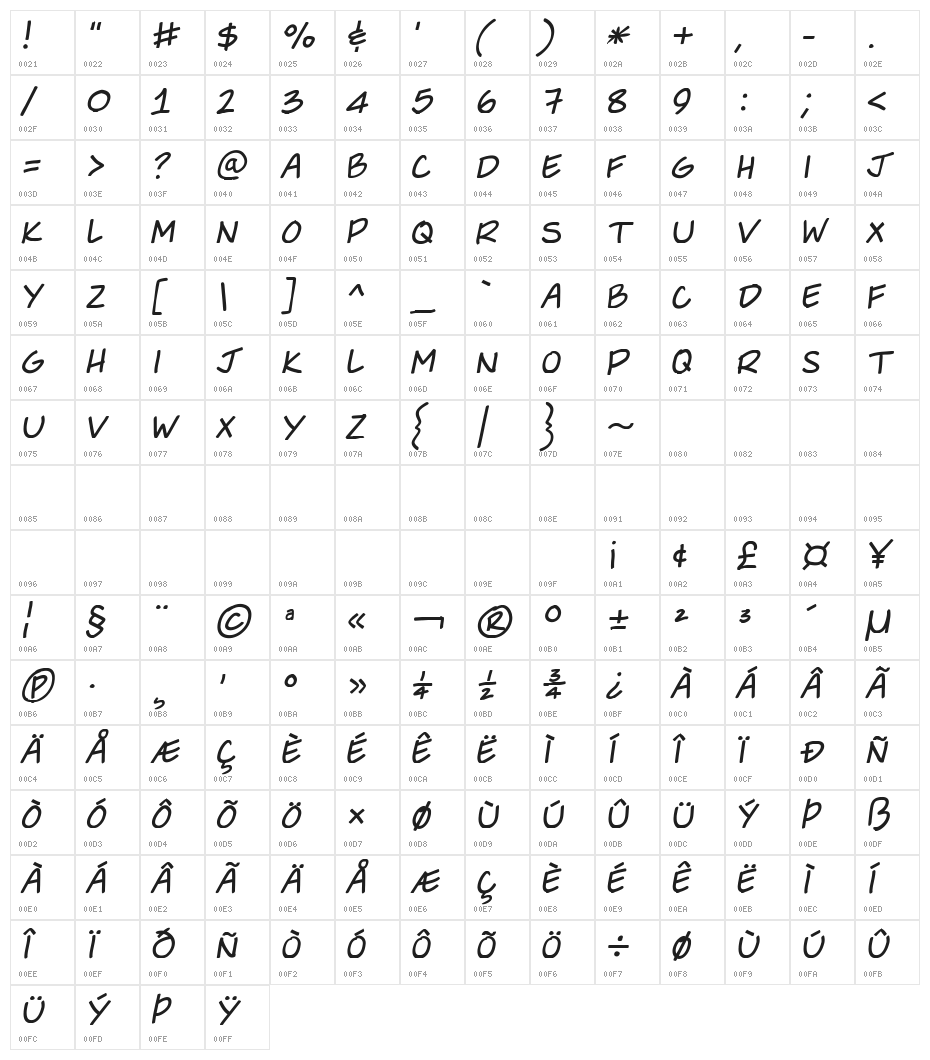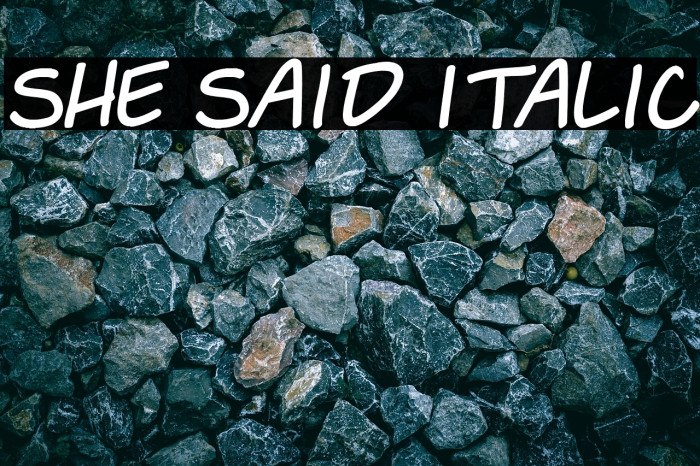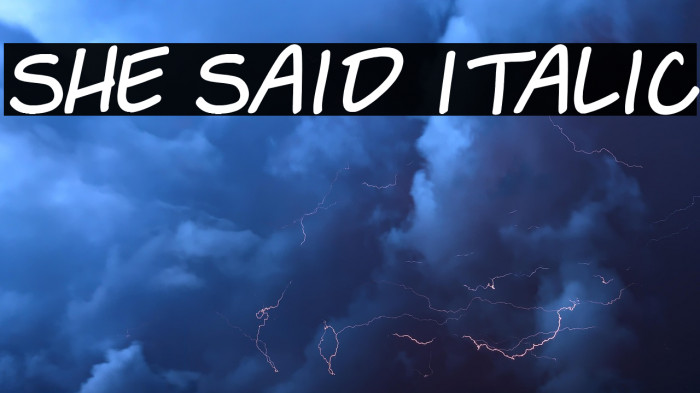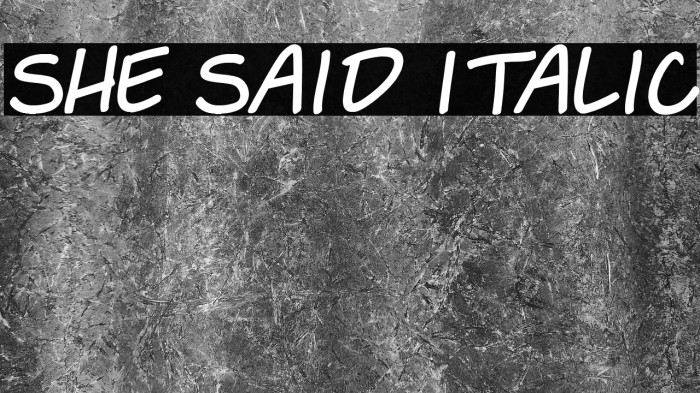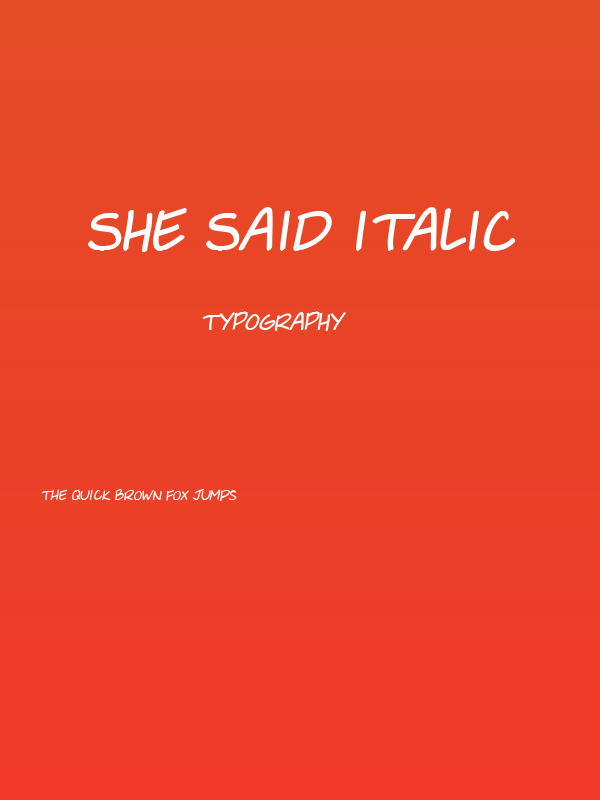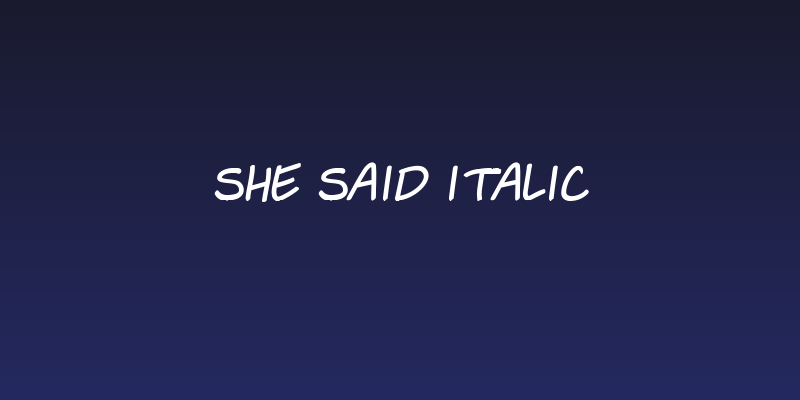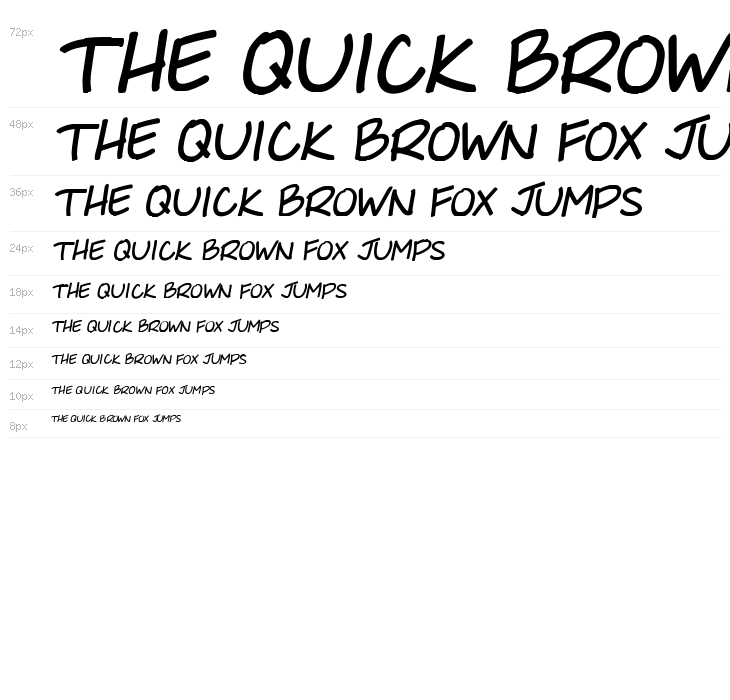
She Said Italic Font
She Said Italic Description
This font exhibits a playful and energetic handwritten style, characterized by its slanted, italicized form. The letters are fluid and dynamic, with a casual, informal appearance that suggests a sense of movement. The strokes are consistent in thickness, providing a uniform look across all characters. The uppercase and lowercase letters maintain a cohesive style, with rounded edges and smooth curves. Numbers and special characters are designed to match the overall aesthetic, ensuring versatility in various applications. The font's lively and approachable nature makes it suitable for projects that require a personal touch.
| Use Case | Logos, Headlines, Informal Text |
| Proposed Projects | Ideal for greeting cards, personal branding, social media graphics, and informal invitations. |